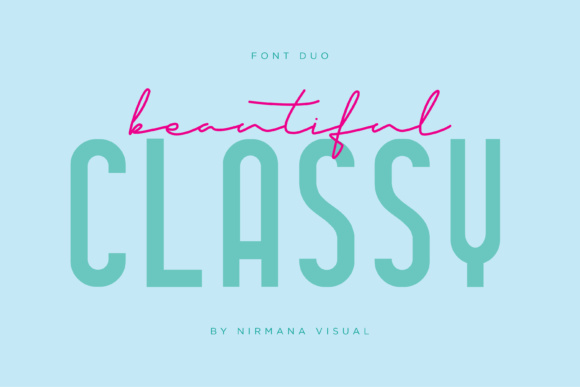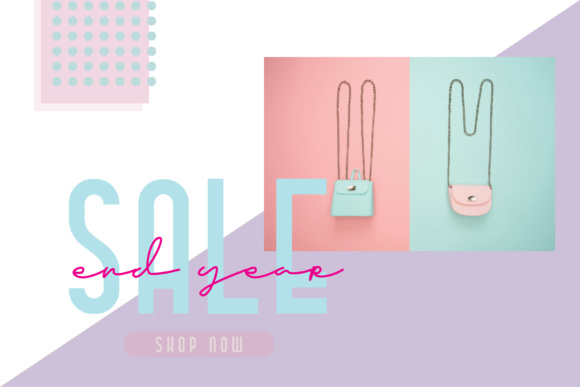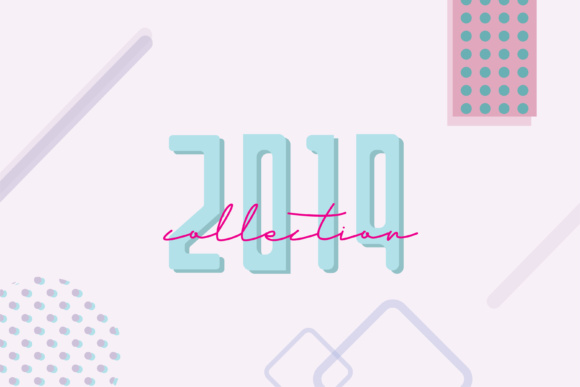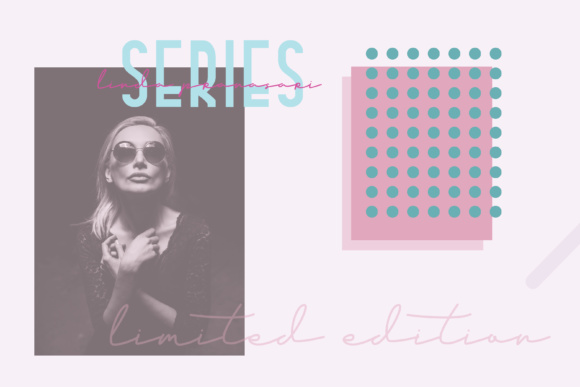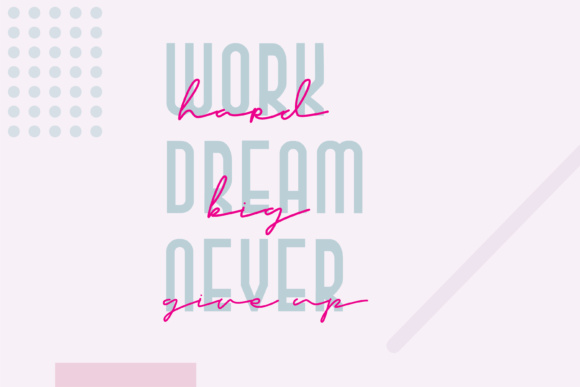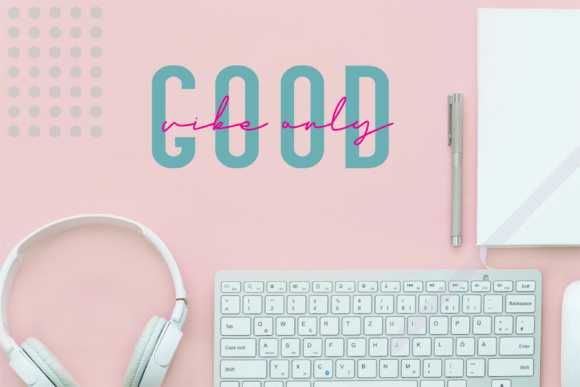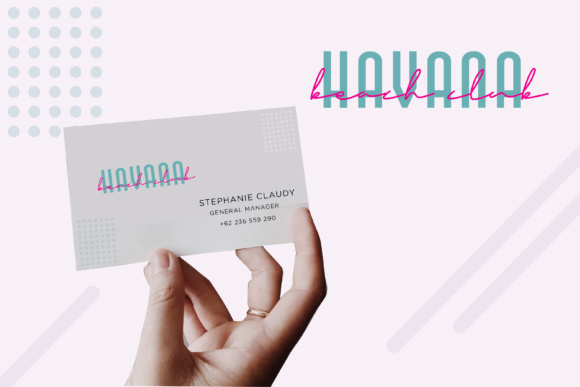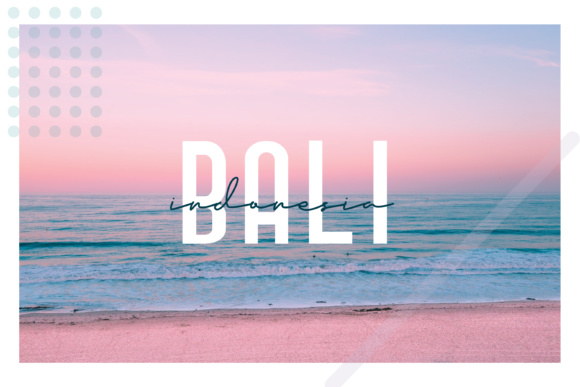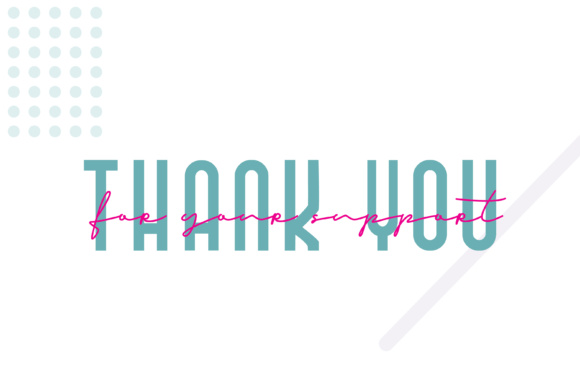
Classy Beautiful Duo Font
About Classy Beautiful Duo Font
The Classy Beautiful is an elegant and modern typeface duo. This duo includes 2 font files; script and sans, designed to work as perfect companions or simply as strong standalone typefaces.